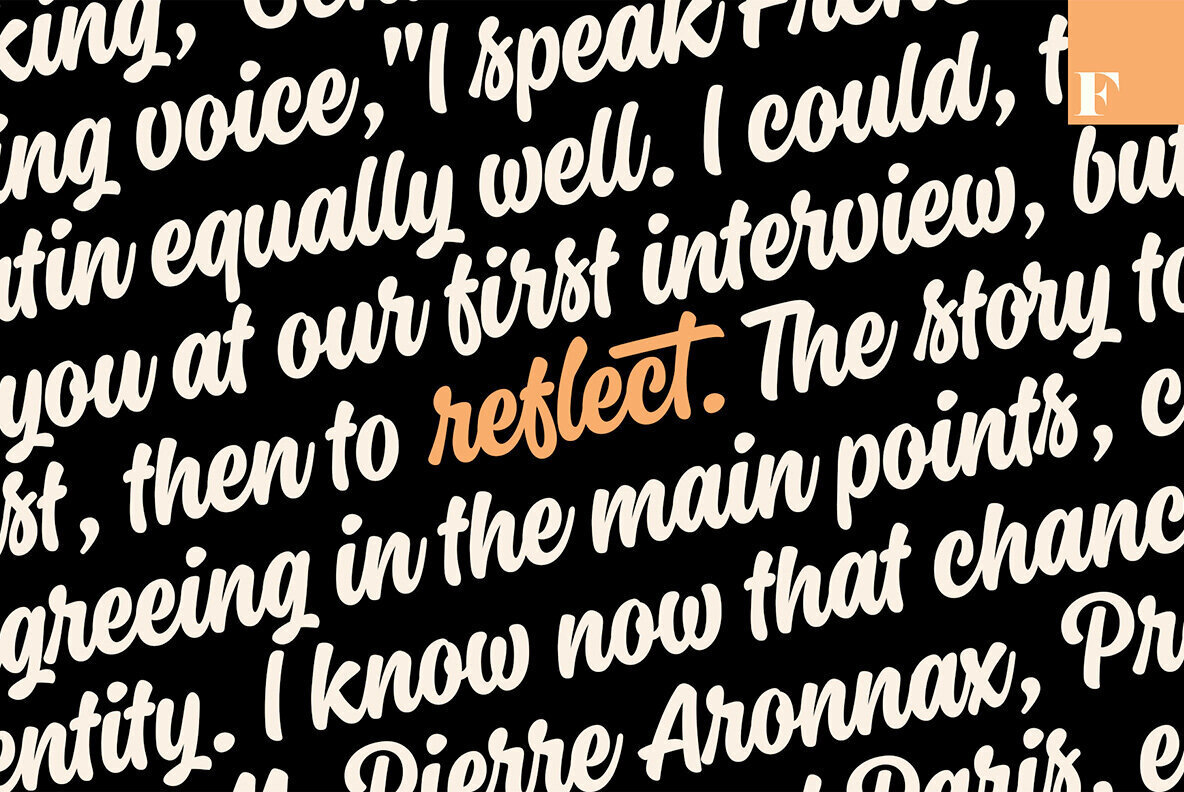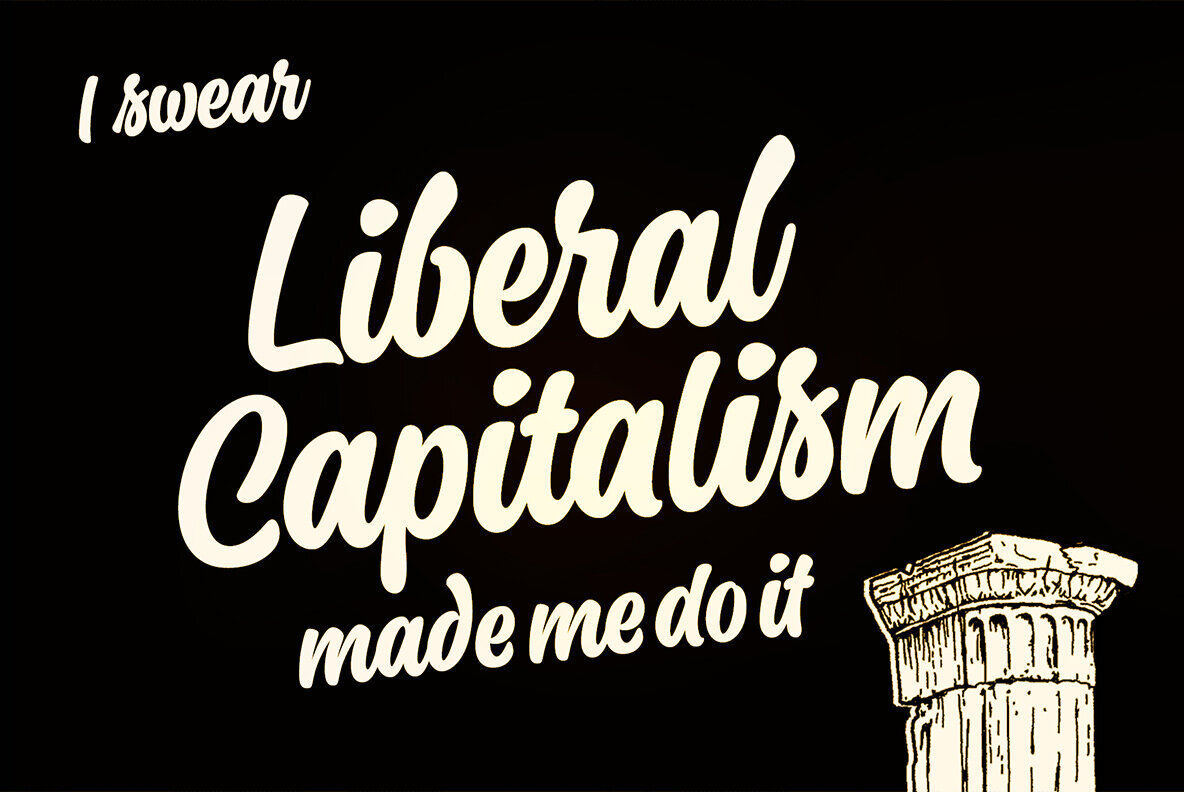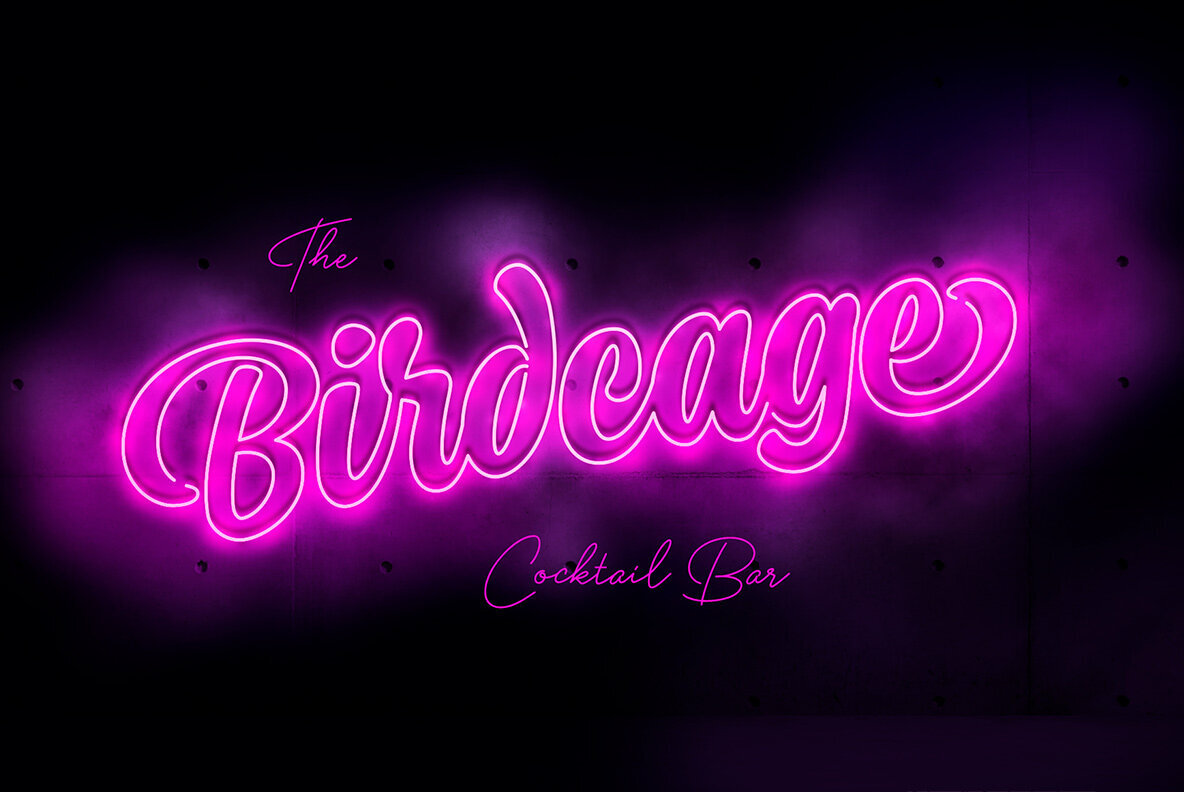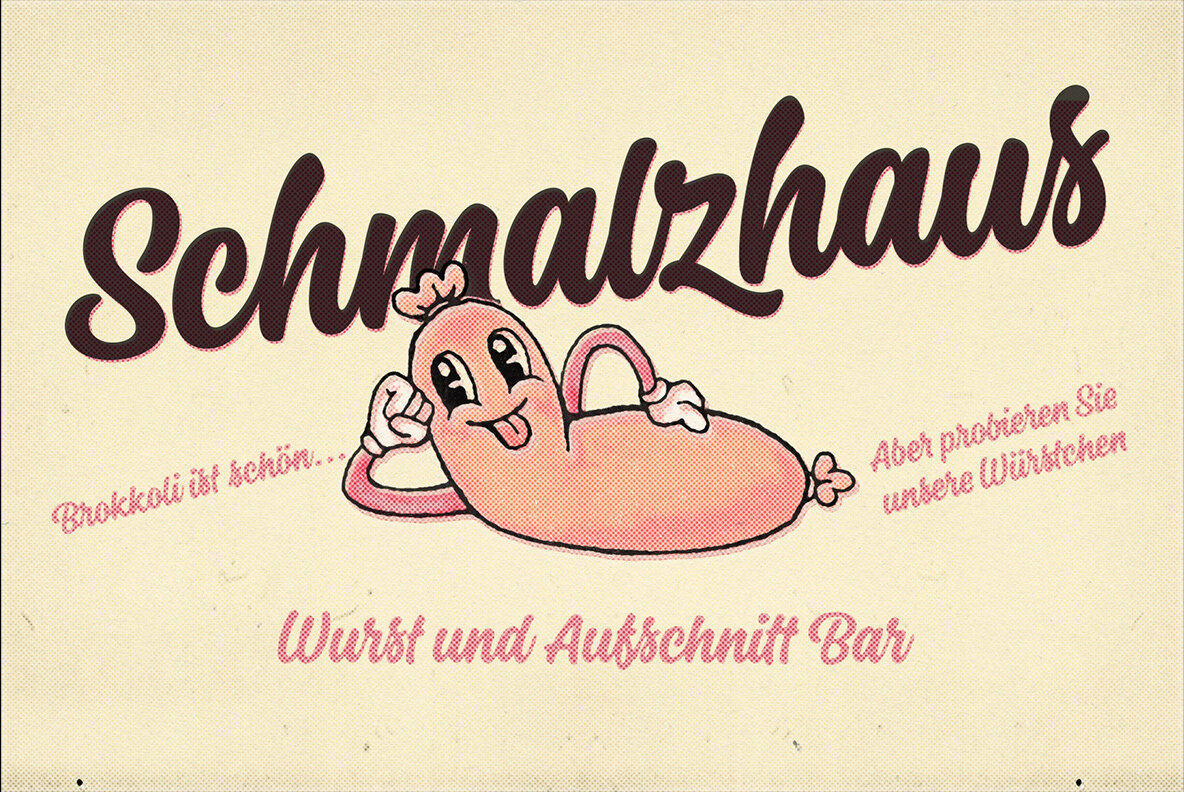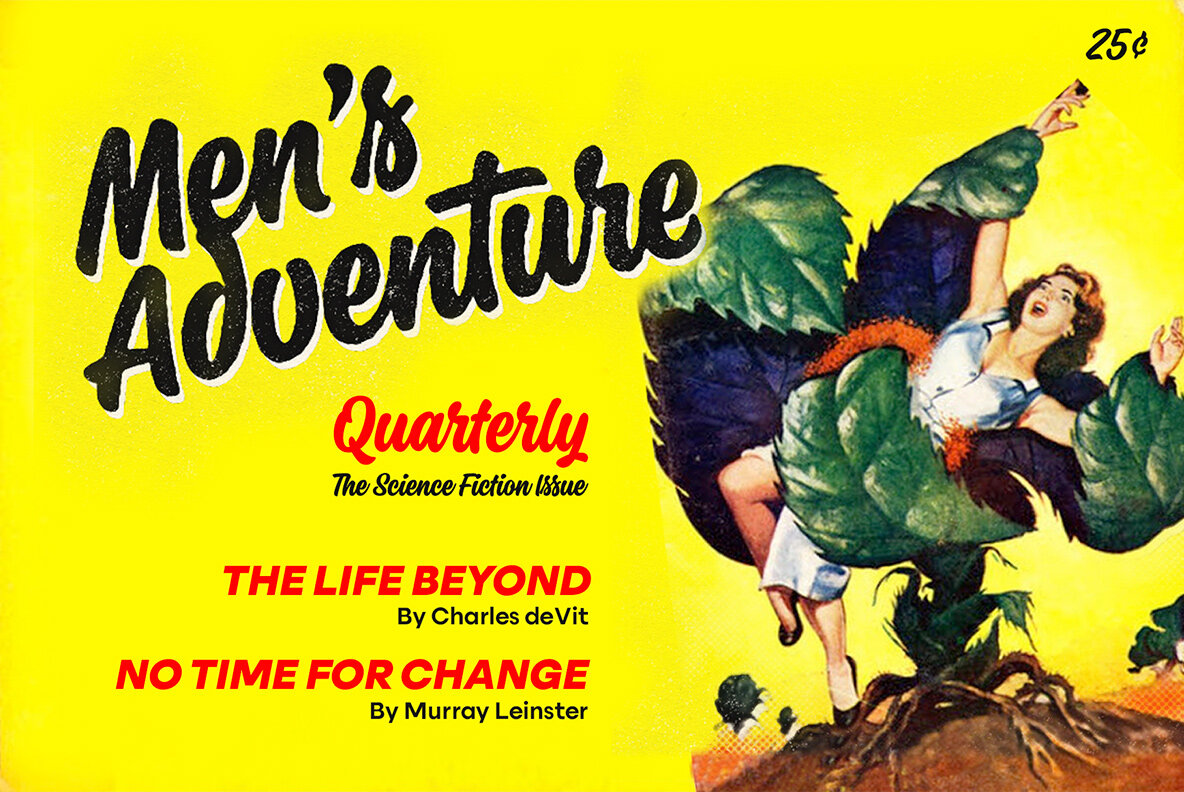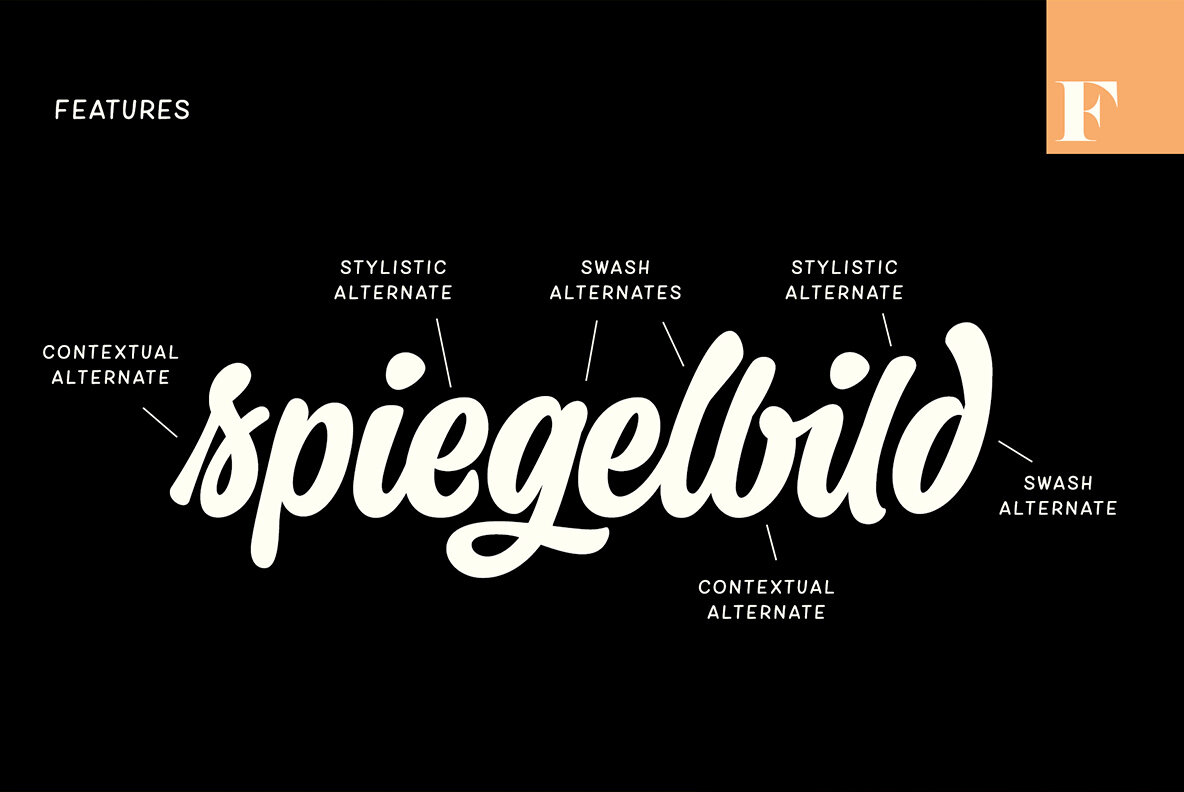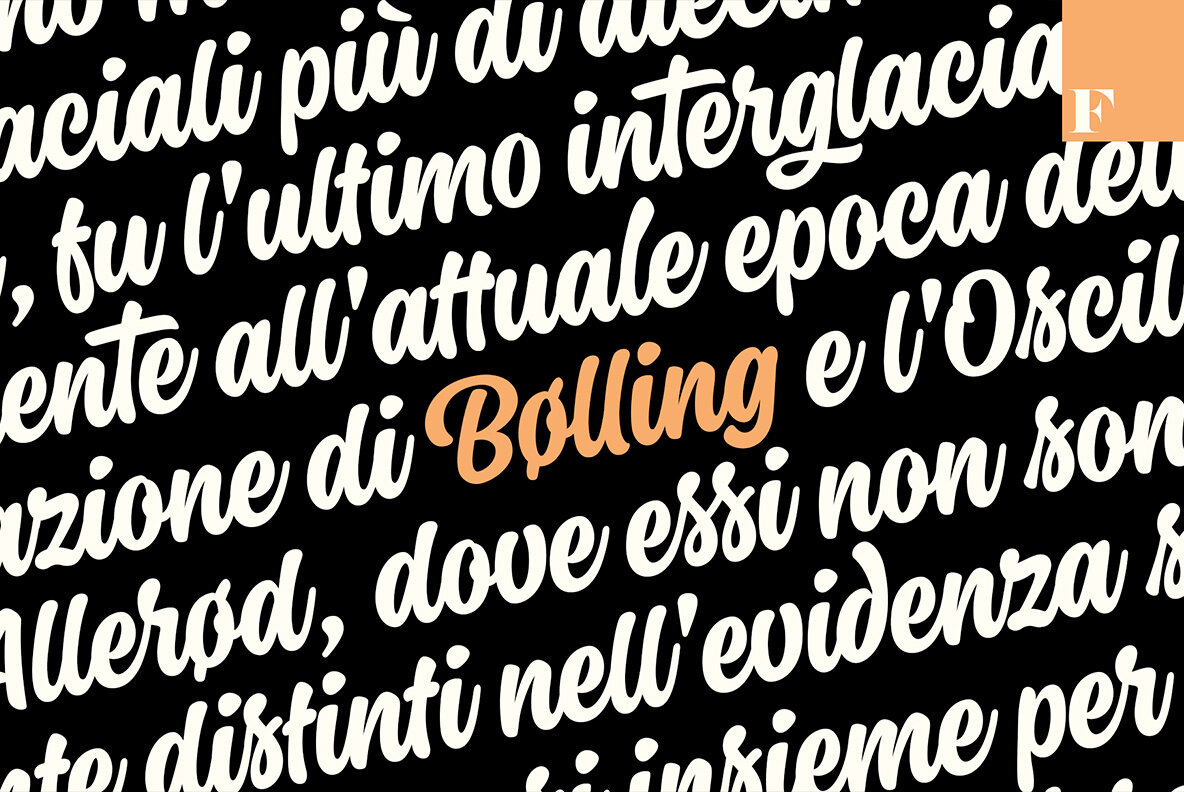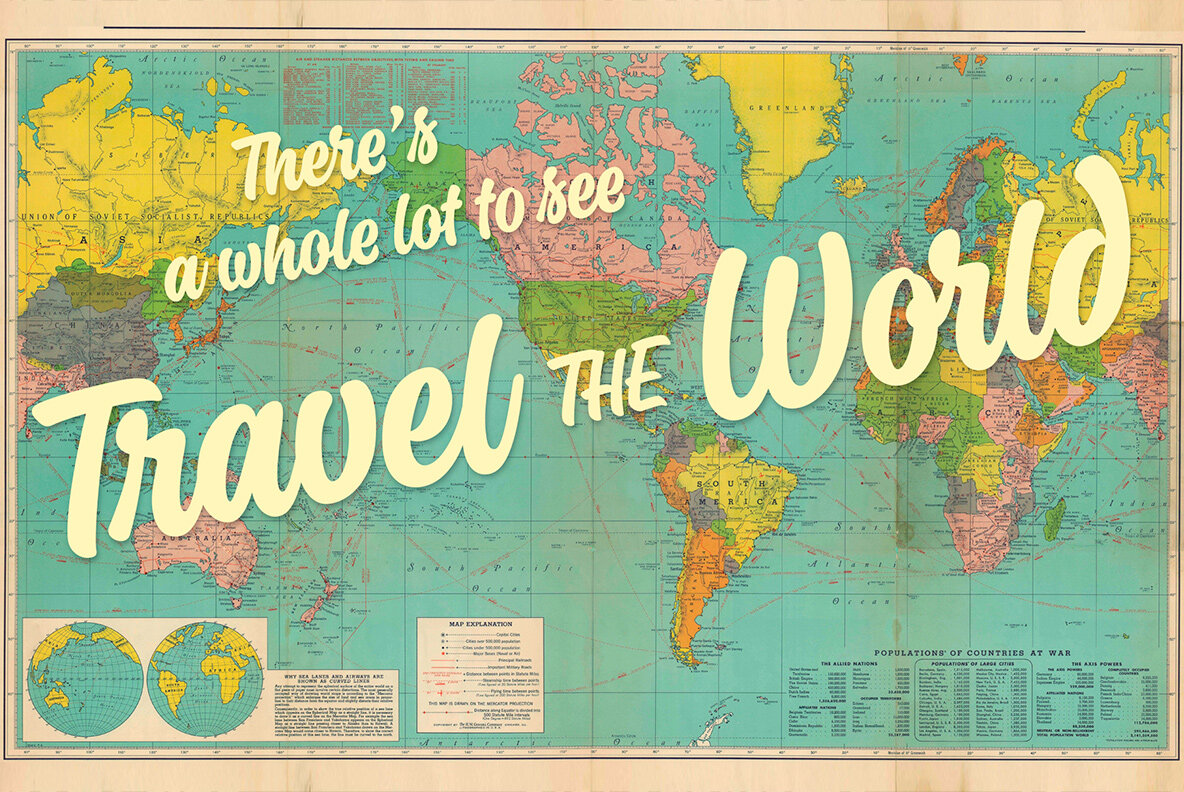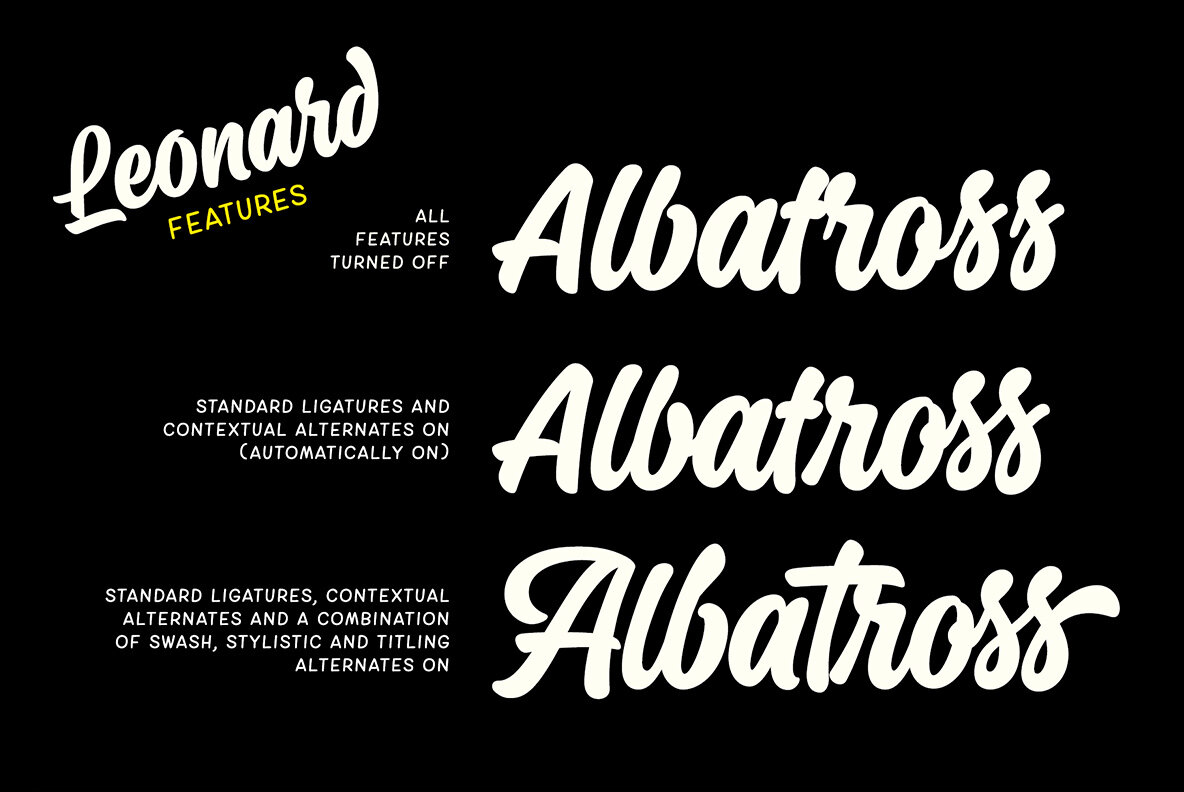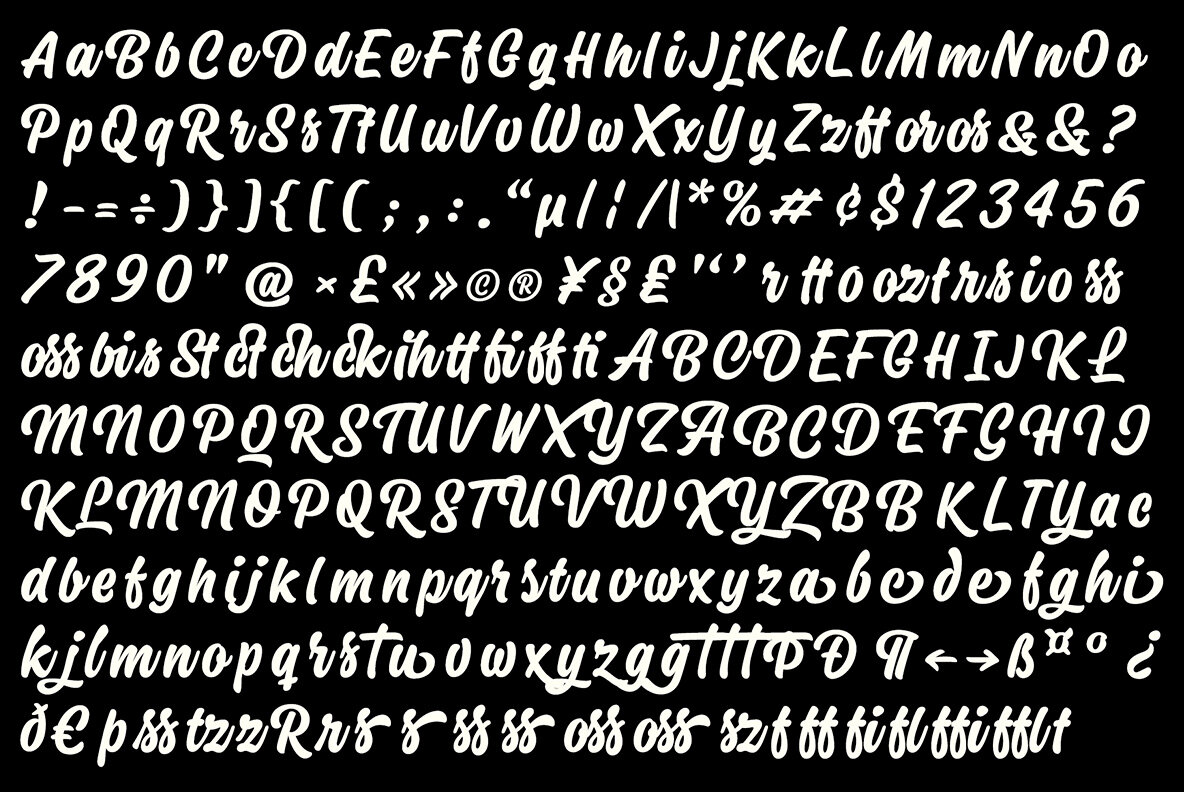
Leonard Font
Leonard is a bold brush script with strong character. Leonard has low contrast, smooth letterforms and high x-height. It’s great for single words or longer text passages; use it in logos or headlines, in packaging, posters, illustrations or product design.
Leonard is packed with OpenType features. It has Contextual Alternates and Standard Ligatures that help to maintain the flow and keep the letters from colliding. These features are automatically on. In addition it has Discretionary Ligatures, Swash, Stylistic and Titling Alternates that you can access from OpenType controls for more custom look, and you can check the Glyphs palette for even more alternates from the total 534 glyphs. All characters shown in the posters can be found inside the font.